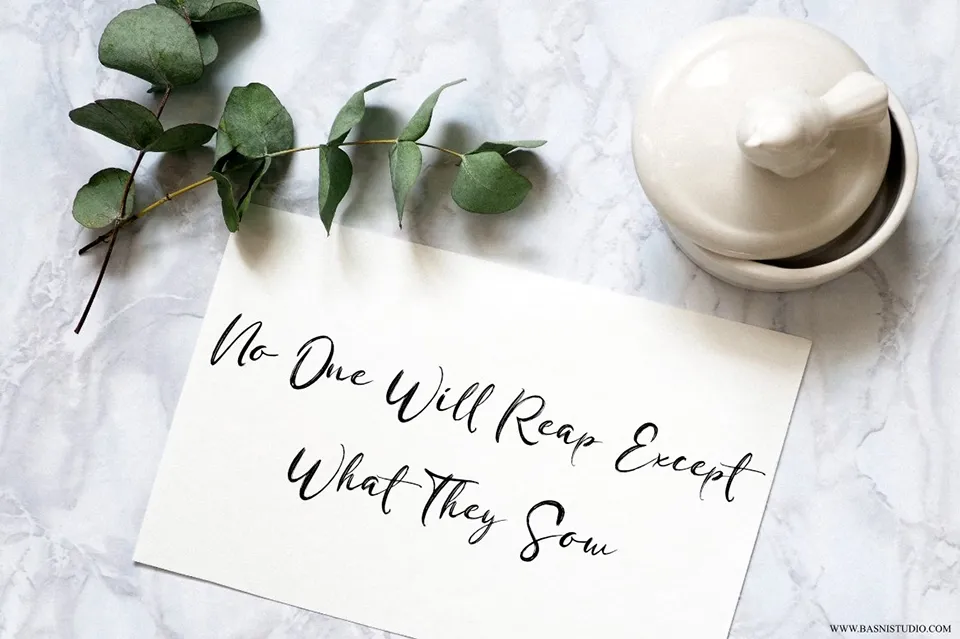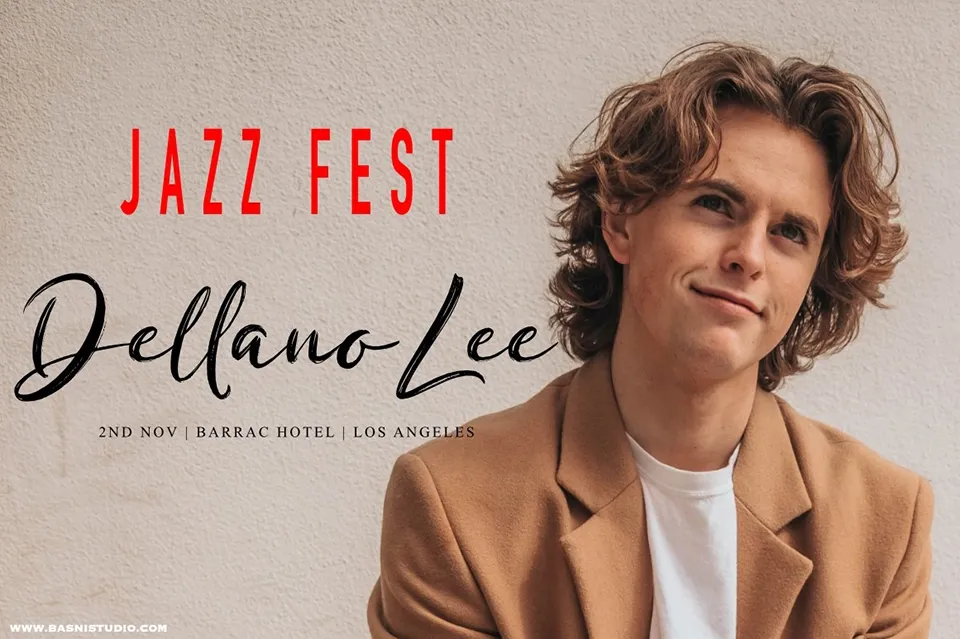
Boston Brush Font
Boston Brush Font is a bold and artistic brush script font that captures the essence of hand-painted typography. With its dynamic strokes and textured details, Boston Brush brings a sense of energy and creativity to any design. Perfect for logos, branding, posters, invitations, and social media graphics, this font adds an authentic handcrafted feel to your projects. Its flowing style and expressive design make it versatile for both casual and professional applications. Whether you’re aiming for a modern edge or a rustic charm, Boston Brush delivers a striking visual impact that ensures your text stands out beautifully.